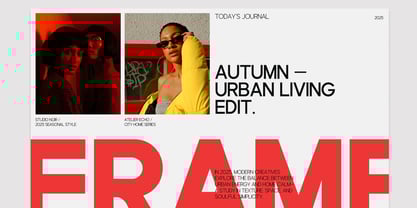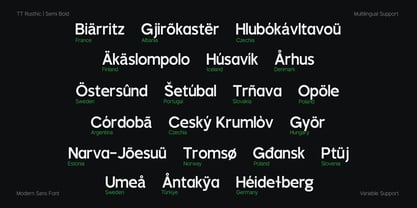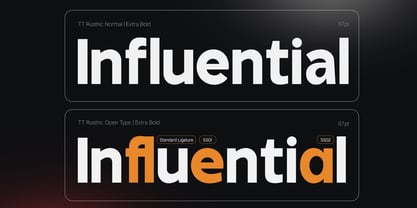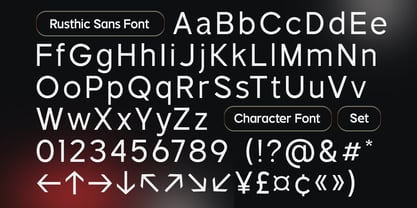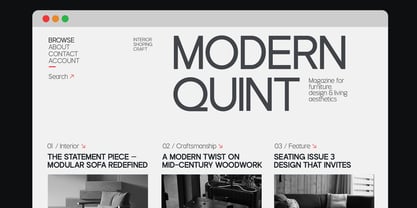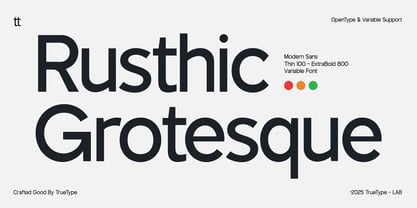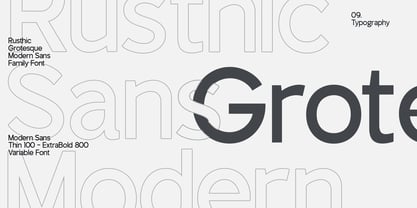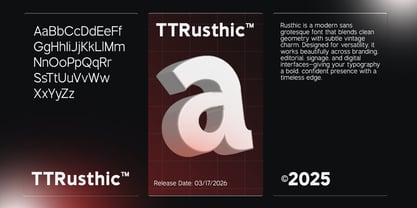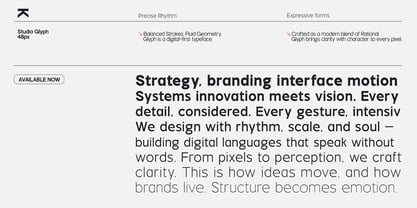
TRT Rusthic
by True Type Lab
The TRT Rusthic Font Family was designed by Yusilo Oktaprima Ardani and published by True Type Lab. TRT Rusthic contains 8 styles and family package options. More about this family
TRT Rusthic is a modern, grotesque sans-serif font family designed to bring clarity, flexibility, and contemporary character to your creative work. With a full variable range from Thin 100 to ExtraBold 800, this font adapts easily to a wide range of visual applications—from bold headlines to sleek interface typography.
With clean curves, balanced spacing, and subtle geometric touches, TRT Rusthic blends the functional simplicity of grotesque with a warm, modern soul. Its open letterforms and smooth rhythm ensure excellent readability, while its expressive weight range lets you set the right tone for your message.
Whether you're designing brand identities, editorial layouts, digital content, or packaging systems, TRT Rusthic delivers a professional yet accessible feel that works beautifully in print and on screen.